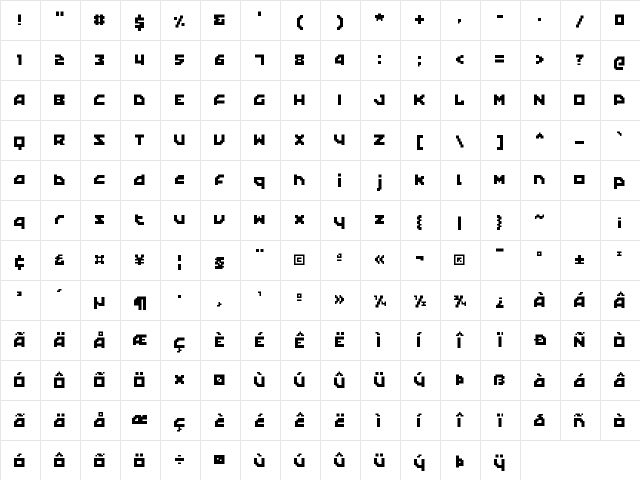
Kapel Medium
Design Context for Kapel Typeface
Kapel is a composed and adaptable typeface that performs quietly and consistently across a wide range of design contexts.